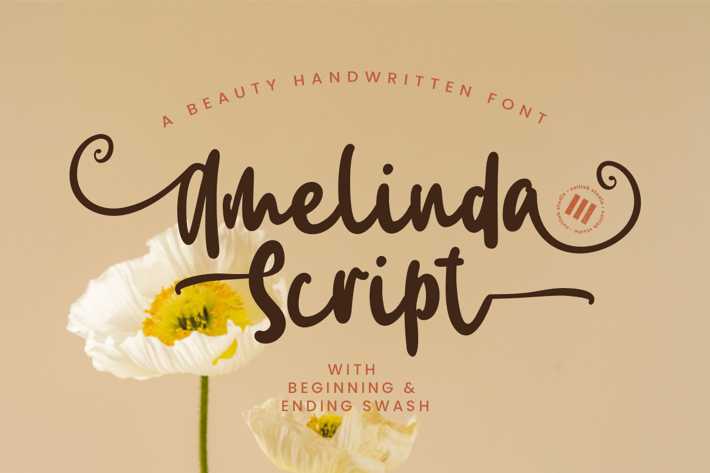
Amelinda Script - A Handwritten Font
Luxury is in the eye of the beholder, but it's also in the hand of the artist. We have been working tirelessly to craft a gorgeous new handwritten font that's both elegant and versatile. It's called Amelinda Script, and its beauty is only matched by its versatility.
Amelinda Script is fully PUA-encoded and comes with beginning and ending swashes as well as stylistic alternates, giving you all kinds of options for crafting the perfect look that matches your brand or project.
It also has full language support (65 languages!), which means that no matter who your audience is, you can create designs that will speak to them—in their native language!
And if you love playing with Open-Type features to create different looks, then you're going to go crazy for this one: Amelinda Script built with all of the Open-Type features you need to make this gorgeous font work with your brand or project—from creating a logo to lettering holiday cards and more!
- PUA ENCODED
- 503 Glyphs,
- 20 + Ligatures & Swashes
- 10 Sets of Stylistic Alternates
- Multilanguage Support ( 64 Languages )